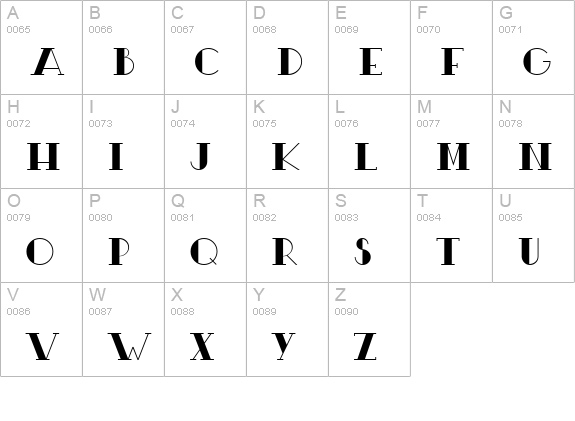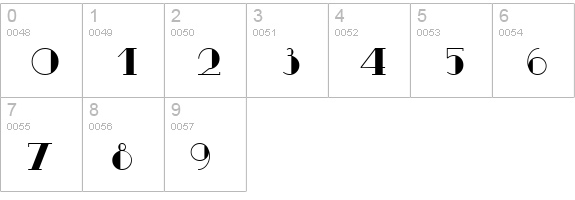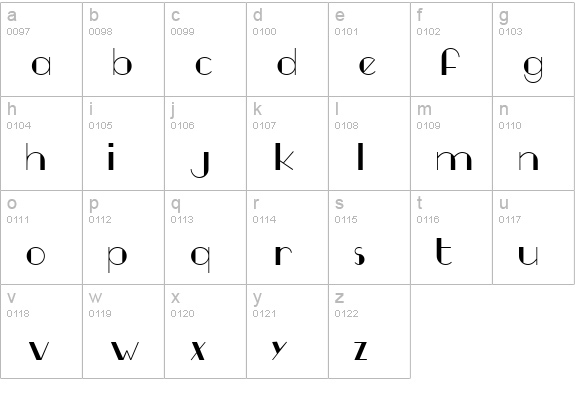
TSF et Compagnie Tryout Font Details
Introducing TSF et Compagnie Tryout, a stunning font that effortlessly combines elegance with a touch of playfulness. This versatile typeface is perfect for a wide range of design projects, from branding and advertising to invitations and social media graphics. TSF et Compagnie Tryout exudes a sense of sophistication, with its clean lines and carefully crafted letterforms. Its unique character sets it apart, making it a standout choice for those seeking a font that is both visually captivating and easy to read. Whether used for headlines, body text, or even decorative purposes, this font is sure to make a lasting impression. One of the most remarkable aspects of TSF et Compagnie Tryout is that it is available completely free of charge. Yes, you read that right – this exceptional font can be downloaded at no cost at FontsMarket.com. This means that you can incorporate this breathtaking typeface into your designs without worrying about breaking the bank. With TSF et Compagnie Tryout, the possibilities are endless. Its versatility allows for seamless integration into various design styles, whether you're going for a modern and minimalistic look or a more vintage and nostalgic aesthetic. The range of weights and styles available ensures that you have all the tools necessary to bring your creative vision to life. Don't miss out on the opportunity to elevate your designs with TSF et Compagnie Tryout. Download this remarkable font today and experience the freedom of creating visually stunning and impactful designs, all while enjoying the convenience of a free download at FontsMarket.com.